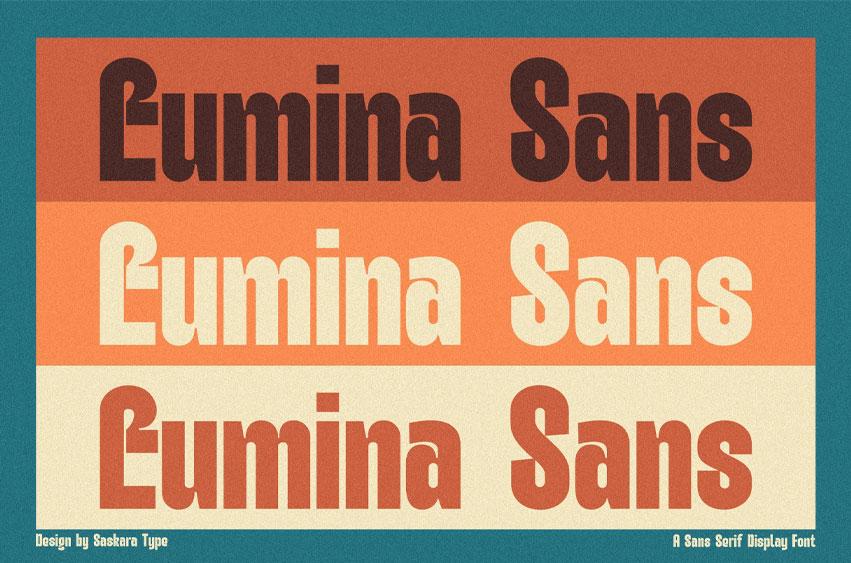
Luminas Font
Luminas Font is designed to provide maximum flexibility in various design projects. Here are some of its main uses:
1. Branding and Visual Identity Helps create a professional, modern, and trustworthy brand identity. Used on logos, business cards, or product packaging for a clean and uncluttered feel. Suitable for tech brands, startups, fashion, or innovative businesses.
2. Digital Design is Ideal for apps, websites, and user interfaces (UI/UX) due to its perfect readability on screens of any size. Suitable for headings, body text, or navigation elements in digital media.
3. Editorial and Publication Used in magazines, books, or brochures to create a modern and organized design. Gives a fresh feel to layouts that require a clear hierarchy of text.
4. Social Media and Advertising Attract attention on posters, banners, or digital promotional materials. Makes text look strong and striking without compromising the simplicity of the design.
5. Presentation and Documentation Used in presentation slides, reports, or company documents for a professional and efficient look.
6. Minimalist Design Helps create a minimalist aesthetic with a focus on space and visual balance. Great for invitations, portfolios, or other creative designs. The modern sans-serif fonts I offer are designed with attention to detail, ensuring premium quality and flexibility in application. With this font, you can:
Strengthen the visual identity of the design project. Create a modern and professional impression. Increase readability and visual appeal across various media. This font is ready to be the best solution for your design needs!